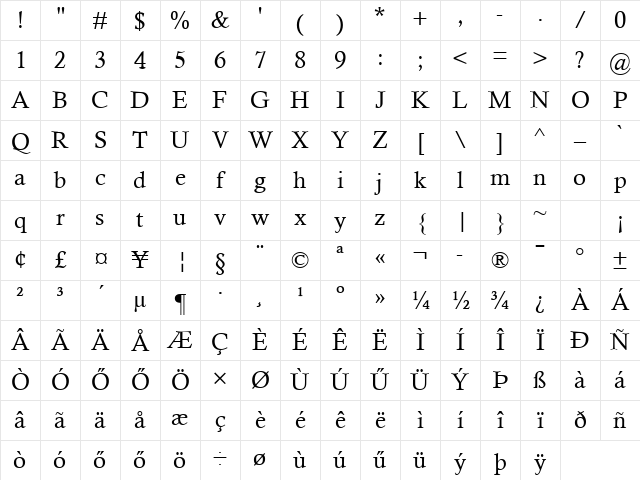
Hu_Calisto MT Regular
Design Context for Hu_Calisto MT
Hu_Calisto MT is a composed and adaptable typeface that performs quietly and consistently across a wide range of design contexts.
Pro Tip: Use Hu_Calisto MT in both headline and body roles to test its range before committing to a single application.